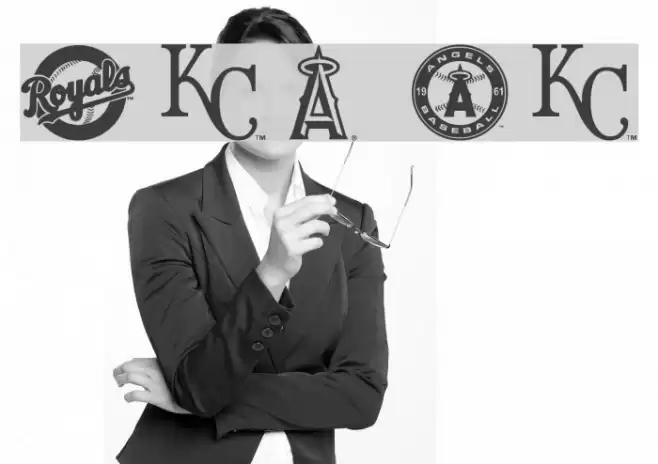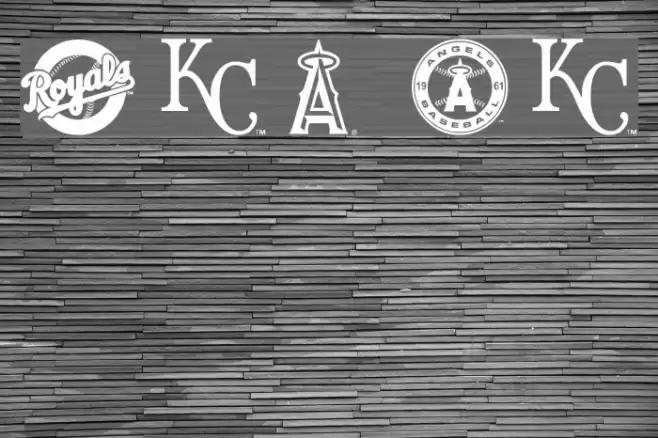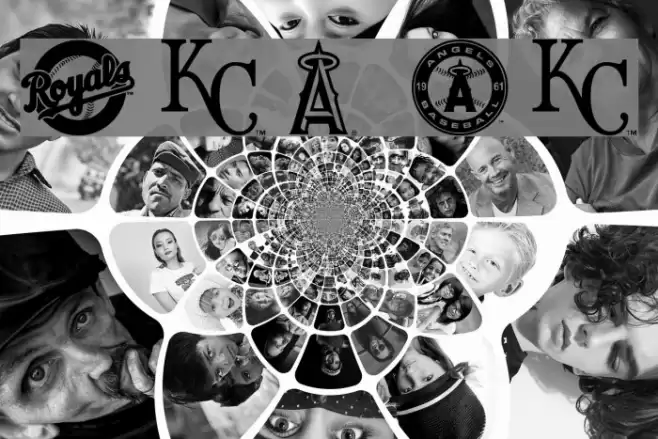
MLB AL Font
MLB AL Description
A collection of stylized logos and wordmarks representing various baseball teams, each featuring unique letterforms, custom scripts, and emblematic iconography. The designs range from bold block letters to intricate scripts and detailed illustrations, often incorporating sports motifs and regional symbols.
A diverse set of custom team logos and wordmarks with varied typographic styles from Dingbats fonts.
- Proposed Projects: Sports branding, team merchandise, event posters, fan apparel, memorabilia.
- Overall Style: Decorative, Sporty, Emblematic
- Use Case: Logos, Branding, Merchandise